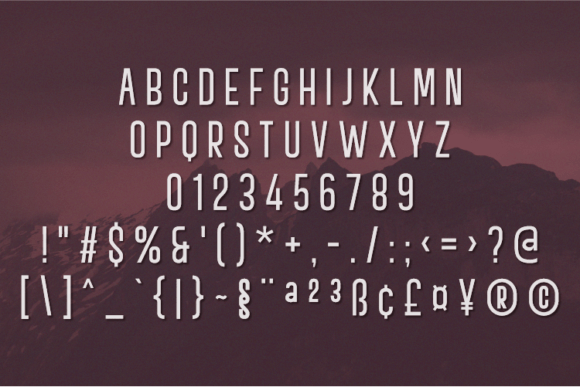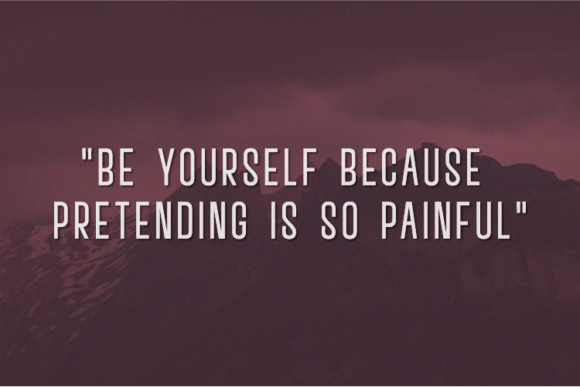
Introduction to Monomalith Font
As designers, we’ve all been there – staring at a blank canvas, waiting for inspiration to strike. But what if the perfect font could spark that creative moment? Enter Monomalith Font, a stunning sans serif font that’s about to revolutionize your design projects.
With its sleek, modern aesthetic and versatile design, Monomalith Font is the perfect addition to any creative project. Whether you’re working on a logo, branding, or web heading, this high-quality font is sure to impress. Its smooth lines and subtle contrast make it a design resource that’s both stylish and functional, perfect for designers who demand the best.
Key Features of Monomalith Font
- High-quality design resource ideal for creative projects and presentations
- Unique, modern sans-serif font with a transparent background, allowing for seamless integration into various design elements
- Perfect for designers seeking a modern, clean, and sophisticated font to elevate their creative project or design resource
- Monomalith Font is a versatile design element, suitable for use in various contexts, from branding and logos to digital interfaces and graphics
Honest Review: Monomalith Font
I recently stumbled upon the Monomalith Font, and I’m excited to share my honest thoughts on this design resource. Overall, I found it to be a high-quality addition to any creative project.
- ✨ Clean and modern design aesthetic that’s perfect for minimalist projects.
- ✨ Highly legible font, making it suitable for both digital and print applications.
- ⚠️ Limited character set, which may not be suitable for projects requiring a wide range of languages.
Overall, I’m impressed with the Monomalith Font. Its simplicity and legibility make it a great choice for designers working on creative projects. While it may not be perfect, it’s definitely a high-quality design resource worth considering.
Monomalith Font is commonly used in graphic design, digital art, and marketing materials. Its high-quality design and transparent background make it an excellent choice for presentations, social media graphics, and website content.